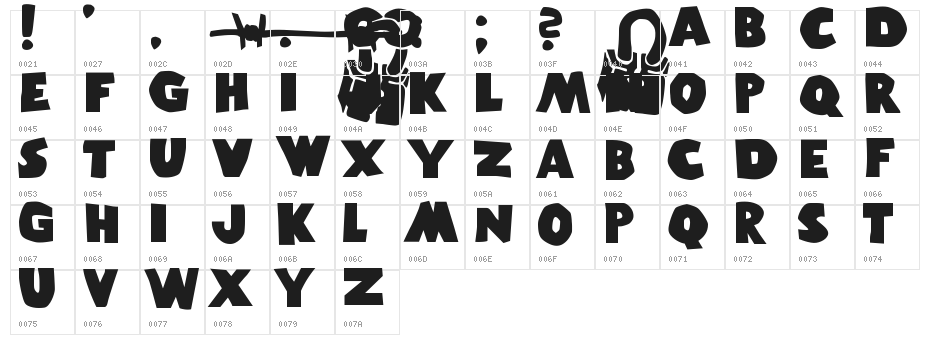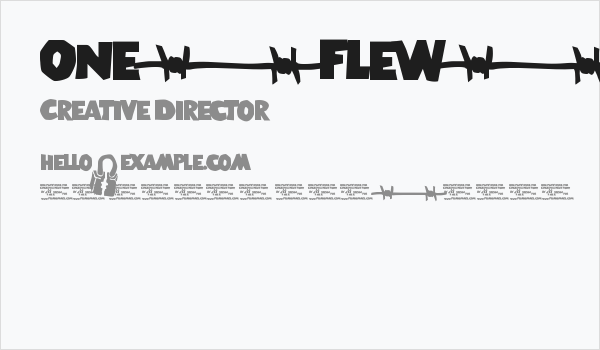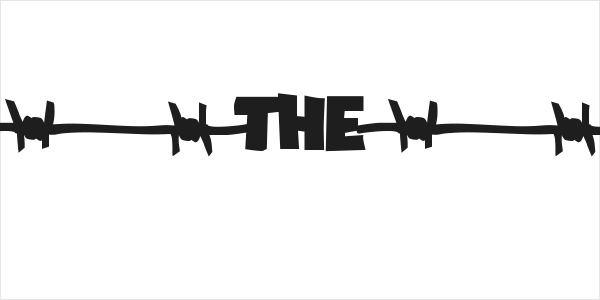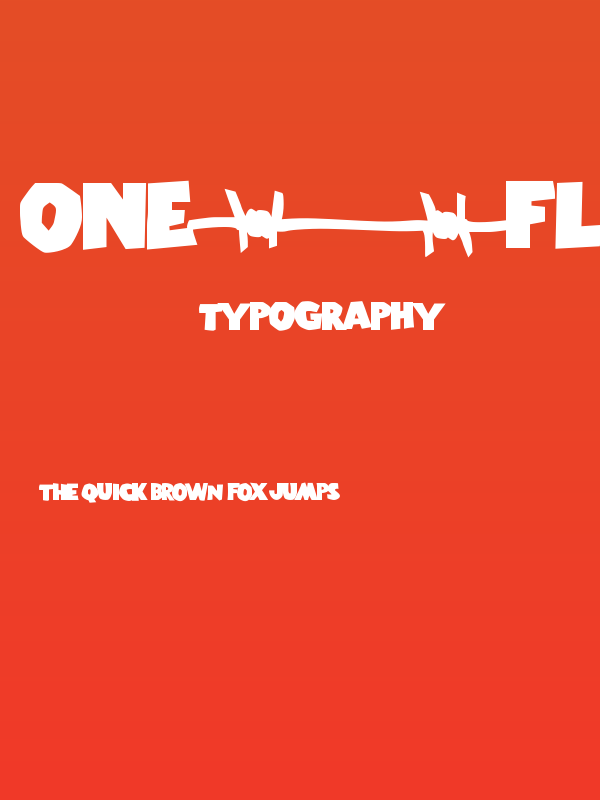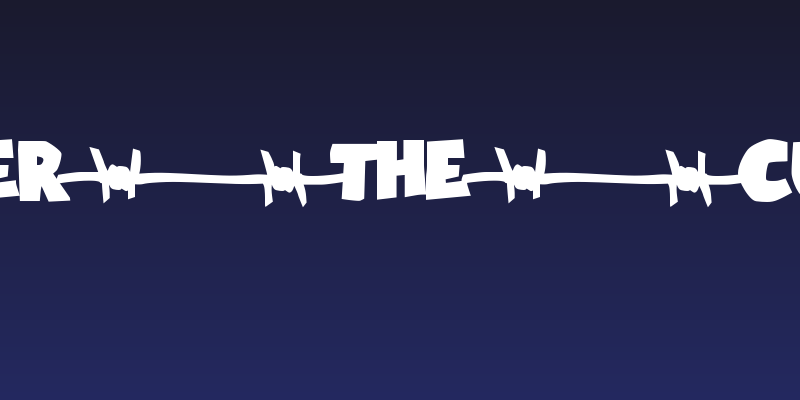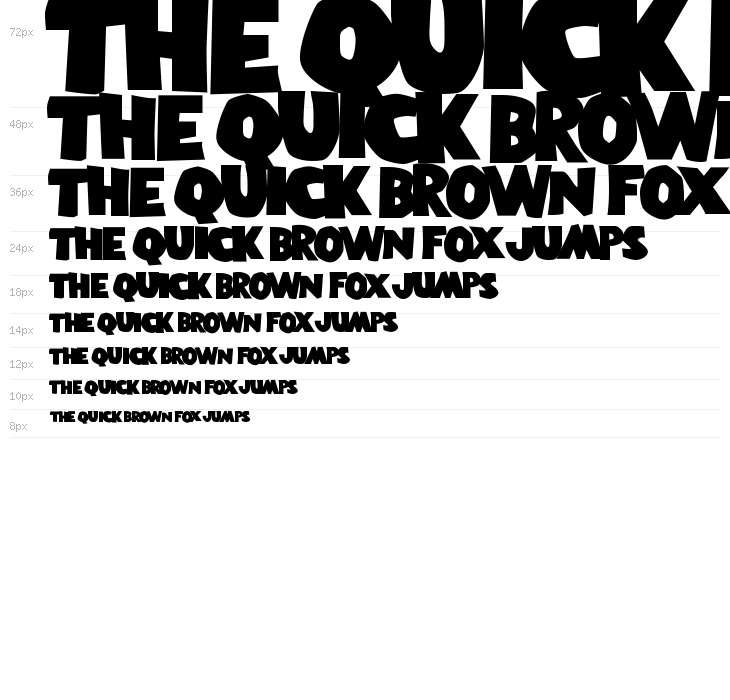
One-Flew-Over-The-Cuckoo-s-Nest Font
One-Flew-Over-The-Cuckoo-s-Nest Description
This bold and dynamic font features thick, blocky letters with a playful and slightly irregular form. The characters are designed with a sense of movement and energy, making them stand out with a strong visual impact. The uppercase letters are particularly prominent, with exaggerated angles and curves that add to the font's unique personality. The style is reminiscent of retro or comic book aesthetics, offering a sense of nostalgia while remaining modern and fresh. The font's boldness and distinctive shapes make it ideal for attention-grabbing headlines or titles.
| Overall Style | Retro, Comic |
| Use Case | Headlines, Posters, Album Covers |
| Proposed Projects | Ideal for use in comic books, posters, album covers, or any project requiring a bold, eye-catching headline. |